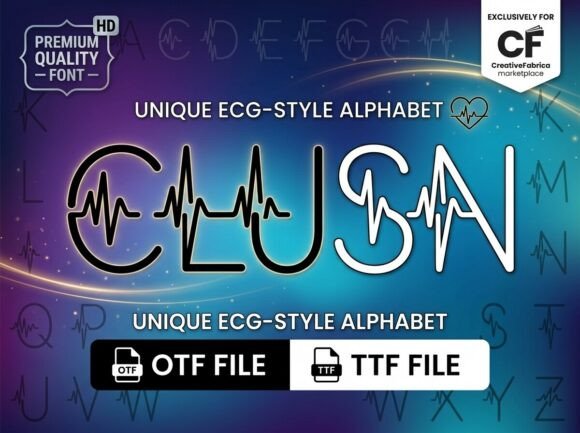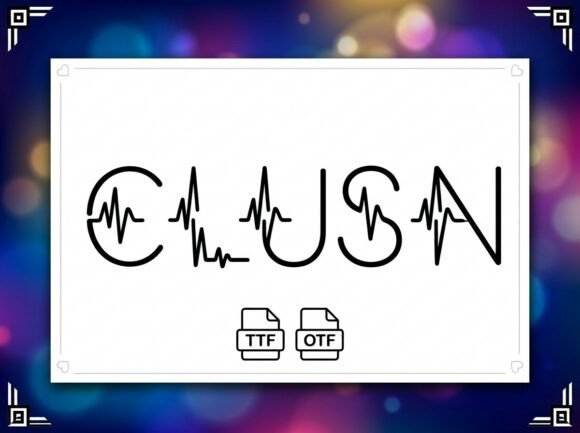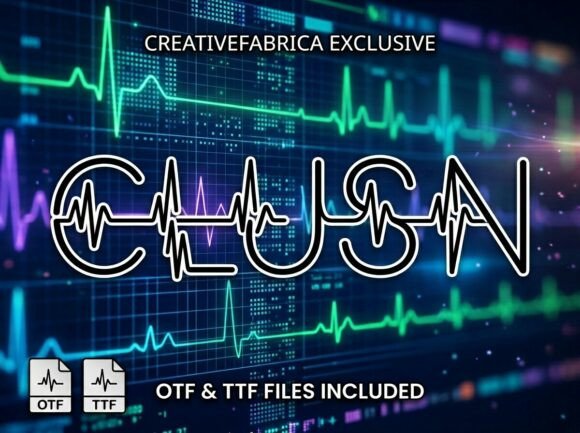
Introducing Clusn Font: The Ultimate Decorative Display Font for Creators
Are you tired of using the same old fonts for your designs? Do you want to make a statement and stand out from the crowd? Look no further than Clusn Font, a stunning decorative display font that’s designed to be the center of attention. With its unique artistic elements and strong visual personality, this font is perfect for creators who want to break away from the ordinary and add a touch of elegance to their work.
What Makes Clusn Font Special?
Clusn Font is a versatile decorative font that’s specifically designed for high-impact headlines, logos, and decorative initials. Its unique artistic elements and strong visual personality make it perfect for a variety of design projects, from bold headlines and artistic logos to creative packaging and more. Whether you’re a graphic designer, a crafty DIY enthusiast, or a business owner looking to elevate your brand, Clusn Font is the perfect choice.
Key Features of Clusn Font
- Unique Artistic Elements: Clusn Font features unique artistic elements that set it apart from other fonts. Its decorative strokes, swashes, and flourishes add a touch of elegance and sophistication to any design.
- Strong Visual Personality: This font has a strong visual personality that’s sure to make a statement. Its bold and eye-catching design makes it perfect for headlines, logos, and other design elements that need to stand out.
- Versatile: Clusn Font is versatile enough for a variety of design projects, from bold headlines and artistic logos to creative packaging and more.
- Professional and Polished Finish: Despite its decorative nature, Clusn Font maintains a professional and polished finish that’s perfect for businesses and individuals who want to elevate their brand.
IMPORTANT NOTE BEFORE PURCHASE: Clusn Font is an ALL-CAPS (Uppercase Only) display typeface. It does not include lowercase letters. It is specifically designed for high-impact headlines, logos, and decorative initials where every letter is a work of art.
Why Choose Clusn Font?
There are many reasons why Clusn Font is the perfect choice for designers and crafters. Here are just a few:
- Unique and Eye-Catching: Clusn Font is a unique and eye-catching font that’s sure to make a statement. Its decorative elements and strong visual personality make it perfect for designs that need to stand out.
- Versatile: Clusn Font is versatile enough for a variety of design projects, from bold headlines and artistic logos to creative packaging and more.
- Professional and Polished: Despite its decorative nature, Clusn Font maintains a professional and polished finish that’s perfect for businesses and individuals who want to elevate their brand.
How to Use Clusn Font
Using Clusn Font is easy. Here are a few tips to get you started:
- Use it for Headlines: Clusn Font is perfect for headlines and titles. Its bold and eye-catching design makes it perfect for grabbing attention and making a statement.
- Use it for Logos: Clusn Font is also perfect for logos and branding. Its unique artistic elements and strong visual personality make it perfect for creating a memorable and recognizable brand.
- Use it for Packaging: Clusn Font is versatile enough for creative packaging projects. Its decorative elements and strong visual personality make it perfect for adding a touch of elegance to any product.
Clusn Font is a stunning decorative display font that’s perfect for creators who want to break away from the ordinary. With its unique artistic elements, strong visual personality, and versatile design, it’s perfect for a variety of design projects, from bold headlines and artistic logos to creative packaging and more. Whether you’re a graphic designer, a crafty DIY enthusiast, or a business owner looking to elevate your brand, Clusn Font is the perfect choice.